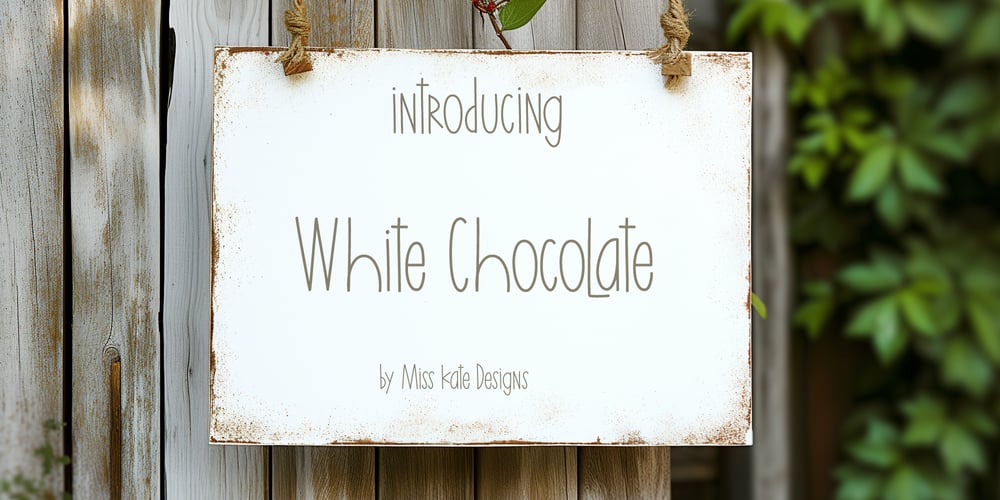
White Chocolate Font Family was designed by published by Miss Kate Designs. White Chocolate contains 1 styles and family package options. White Chocolate Font is a cute, handwritten font. Perfect for greeting cards, wedding stationery, logos, modern websites, apparel design and more.